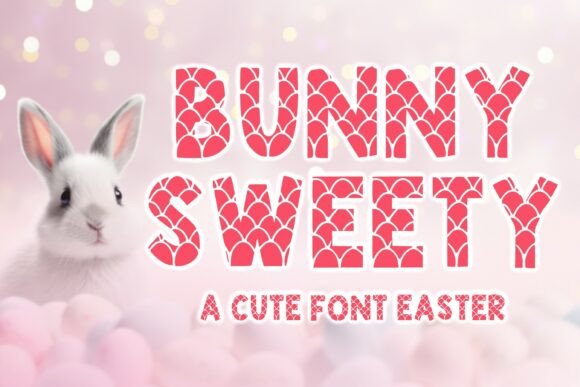
Hop into Creativity with Bunny Sweety Font
I’ll never forget the time I was working on an Easter-themed craft project for my niece’s birthday party. I had all the materials ready, from colorful paper to adorable stickers, but something was missing – the perfect font to tie everything together. I scrolled through my font library, but nothing seemed quite right. That’s when I stumbled upon Bunny Sweety, a playful and charming display font that instantly brought a smile to my face. With its bold letterforms filled with a cute scallop pattern, I knew I had found the perfect fit.
A Sweet Addition to Your Font Collection
Bunny Sweety is more than just a font – it’s a design statement. Its unique and eye-catching look makes it perfect for Easter crafts, kids merchandise, greeting cards, party invitations, t-shirts, sublimation prints, stickers, Cricut & Silhouette projects, and seasonal branding. Whether you’re a designer, crafter, or creative hobbyist, this font is sure to add a soft, sweet, and joyful touch to your designs.
- ✨ Unique and playful design that’s perfect for Easter and spring-themed projects
- ✅ Bold and decorative style that makes it ideal for headlines and standout typography
- 💕 Cute scallop pattern that adds a touch of whimsy to any design
- 🎉 Easy to read and understand, even in large and small sizes
⚠️ While Bunny Sweety is a versatile font, it’s best used for display purposes. It’s not ideal for body text or long paragraphs, as it may be overwhelming to read.
🤔 Some users may find that the scallop pattern can be a bit distracting if not used thoughtfully. However, with a little creativity, this can be easily turned into a design asset.
The Story Behind Bunny Sweety
Bunny Sweety was designed with one goal in mind: to bring a touch of Easter magic to your designs. The font’s creator was inspired by the whimsical and playful world of Easter, where cute bunnies, colorful eggs, and sweet treats come together. With Bunny Sweety, you can add a dash of that magic to your projects and make them truly special.
Q: What is Bunny Sweety font best used for?
A: Bunny Sweety is perfect for Easter crafts, kids merchandise, greeting cards, party invitations, t-shirts, sublimation prints, stickers, Cricut & Silhouette projects, and seasonal branding.